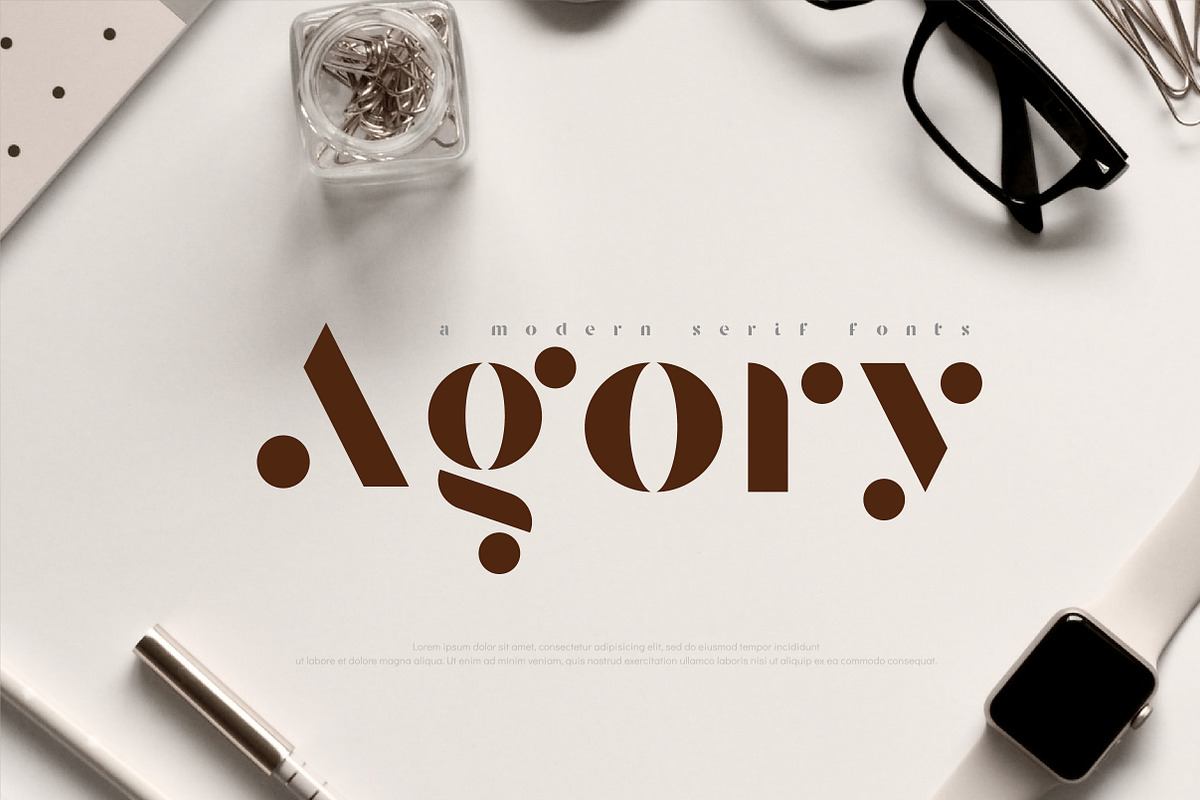
Agory Font is perfect for contemporary branding projects, modern logo design, digital interface typography, tech startup materials, minimalist packaging design, clean website headers, progressive magazine layouts, innovative business cards, sleek signage systems, forward-thinking advertising campaigns, modern art publications, and cutting-edge design applications.
Agory Font is exciting because it represents the pinnacle of contemporary type design through its innovative letterforms that perfectly balance geometric precision with organic warmth, creating typography that feels both futuristic and approachable. This groundbreaking typeface features clean, modern characters with subtle personality touches that make digital communications feel human and engaging. The font's progressive aesthetic positions brands at the forefront of design innovation while maintaining exceptional readability across all platforms.
Agory Font includes comprehensive font families: Regular Modern Style, Bold Contemporary Weight, Light Minimal Touch, Medium Progressive Balance, Italic Forward Slant, Condensed Efficient Width, Extended Dynamic Format, Ultra Thin Version, Black Impact Style, and Special Innovation Symbols, providing complete solutions for modern design challenges and contemporary brand requirements.
This revolutionary typography solution transforms standard communications into cutting-edge brand experiences through its forward-thinking aesthetic and contemporary design language. Agory Font Free Download enables designers and innovators to access premium modern typography that instantly adds sophistication, innovation, and contemporary appeal to any creative project. The font's carefully engineered proportions ensure optimal performance across digital and print media while maintaining its distinctive modern character.
Tech companies, design agencies, and progressive brands trust Agory Font for its ability to communicate innovation, efficiency, and forward-thinking values to audiences who appreciate contemporary design excellence and technological advancement. The typeface's versatile construction performs exceptionally well across various applications, from intimate app interfaces to large-scale digital billboards. Its extensive character support includes multilingual capabilities and modern design elements that enhance contemporary brand presentations.
The design philosophy behind Agory Font emphasizes the perfect fusion of technological precision and human-centered design, creating typography that serves both functional needs and emotional connections in our digital age. This innovation-focused approach creates a font that feels genuinely contemporary while maintaining timeless usability across different technological contexts and progressive brand expressions.